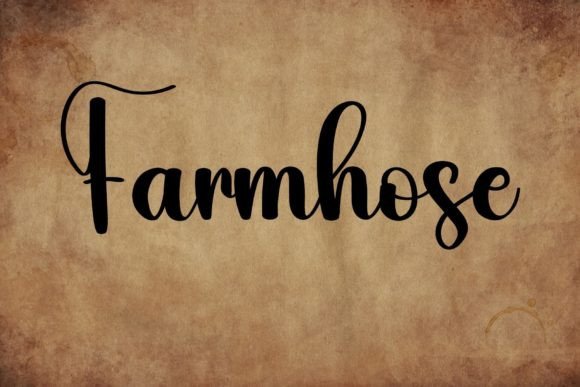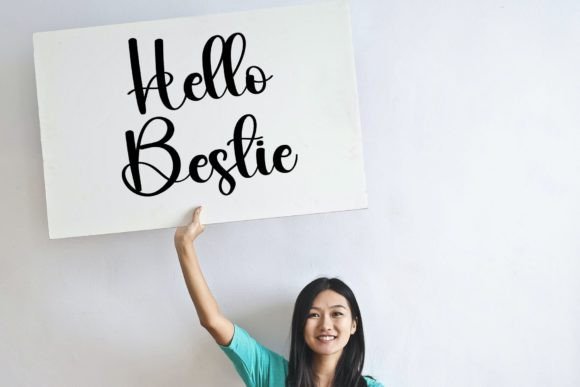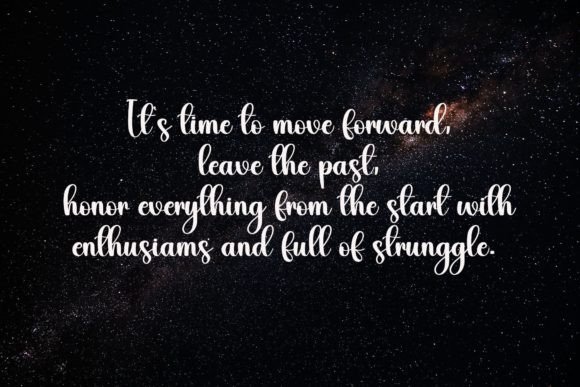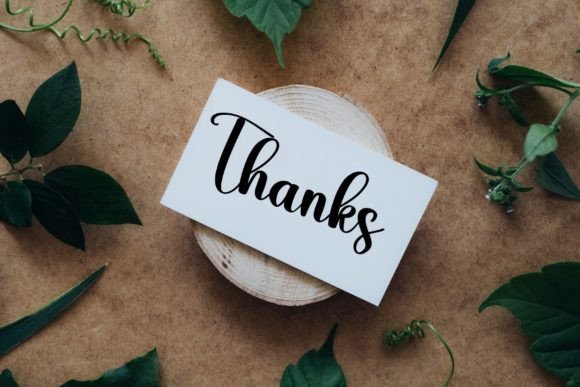
Vintage Font
About Vintage Font
“Vintage” is a font that exudes a delicate and well-rounded charm, making it an ideal choice for crafty projects that require authentic typography. Its handmade quality gives it a genuine and vintage appeal, making it perfect for a variety of creative endeavors, including wedding invitations, birthday cards, personal branding, elegant logos, and much more.
**Authentic Craftsmanship**: “Vintage” is crafted with care and attention to detail, capturing the essence of authenticity. Its delicate strokes and well-rounded characters reflect the craftsmanship of a bygone era, adding a touch of nostalgia and charm to your projects. This font is particularly well-suited for designs that aim to evoke a sense of history and craftsmanship.
**Versatility in Design**: Whether you’re planning a vintage-inspired wedding, designing elegant birthday invitations, or creating a personal brand with a touch of old-world charm, “Vintage” adapts seamlessly to various design contexts. Its versatility allows you to experiment with different styles, ensuring that your projects have a timeless and classic appearance.
**Perfect for Crafty Projects**: Crafty projects demand typography that feels genuine and handmade, and “Vintage” fulfills this requirement beautifully. Its authentic and vintage-inspired design enhances the overall aesthetics of crafty creations, making it a popular choice among DIY enthusiasts, artisans, and designers working on handmade products and crafts.
**Elegance and Timelessness**: The elegance of “Vintage” lies in its timeless appeal. Its well-rounded and delicate characters exude sophistication, making it suitable for projects that require a touch of refinement. Whether you’re designing elegant logos or crafting invitations for special occasions, this font adds a sense of grace and elegance to your designs.
In summary, “Vintage” is more than just a font; it’s a journey back in time, a celebration of craftsmanship, and an embodiment of authenticity. Its delicate and well-rounded handwritten style makes it a valuable asset for crafty projects, allowing you to infuse your creations with a sense of history and genuine craftsmanship. So, let “Vintage” be your creative companion, enhancing your wedding invitations, birthday cards, personal branding, elegant logos, and other crafty endeavors with its timeless charm and elegance.